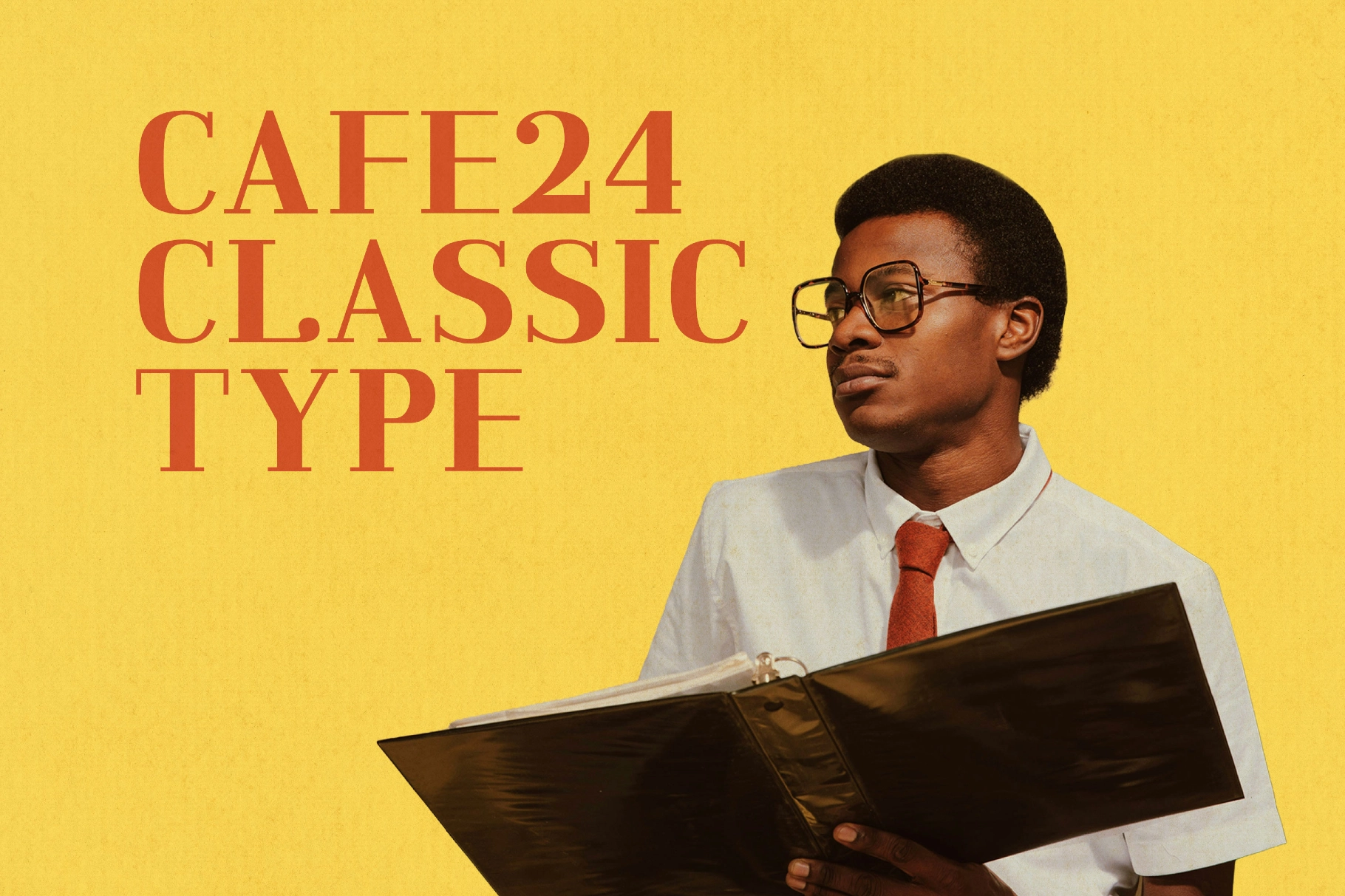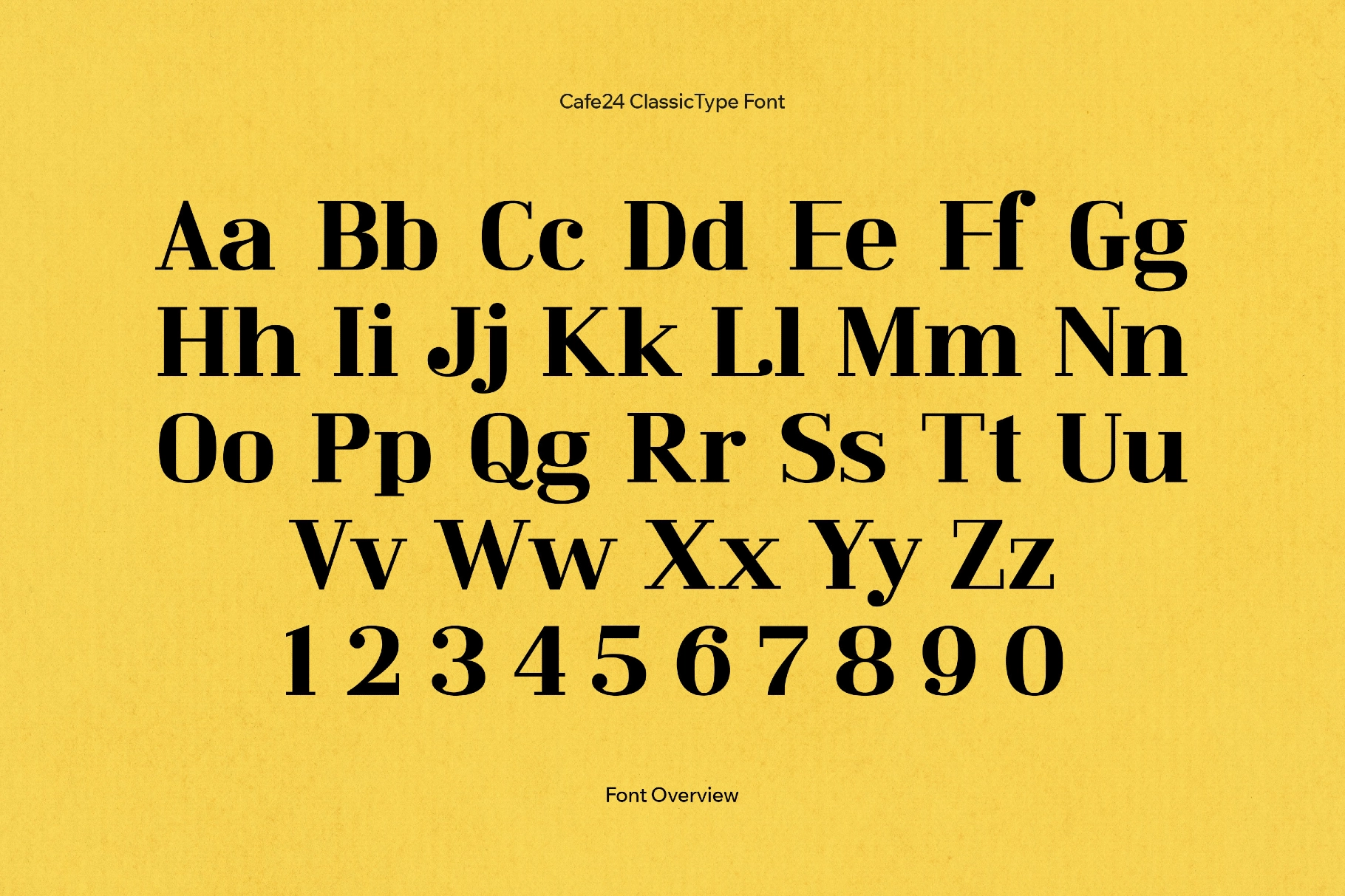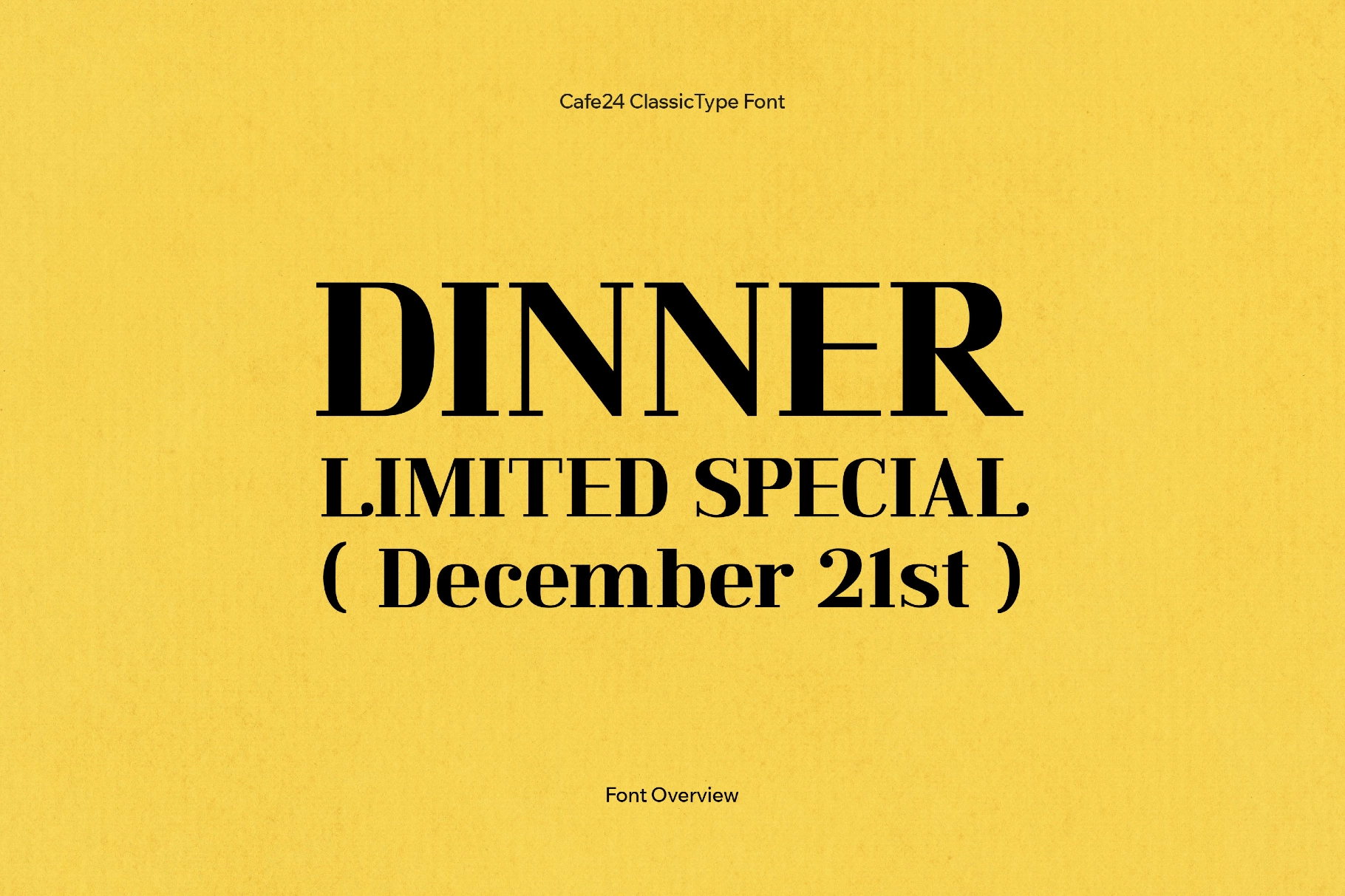
Cafe24 ClassicType Font
Cafe24 is a serif with early-20th-century schoolbook roots. It pairs steady verticals with rounded terminals and modest contrast. The letters are crisp and orderly: Latin, Cyrillic, Greek, Japanese, and Hangul sit comfortably together, so multilingual layouts read as one system.
Perfect for magazine mastheads, book covers, chapter openers, cafe or bookstore wordmarks, museum posters, cultural event campaigns, bold headlines for editorial features, and cosmetic or tea packaging. The typeface also suits bilingual menus, storefront signage, wayfinding, pull quotes, social cards, title slides, and recipe layouts.